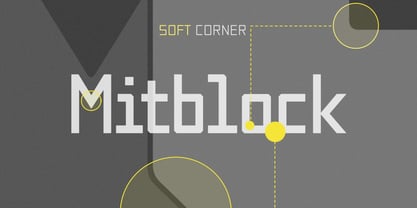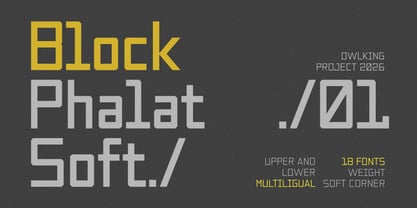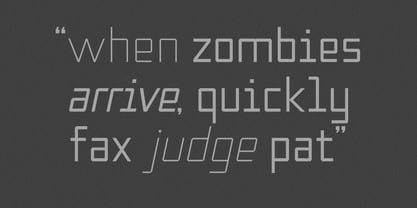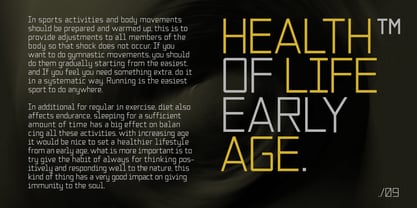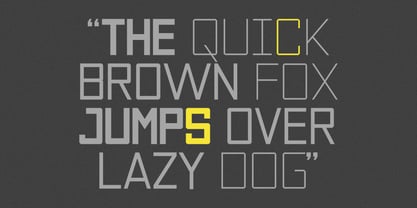
Block Phalat
by Owl king project
The Block Phalat Font Family was designed by Darhilen and published by Owl king project. Block Phalat contains 18 styles and family package options. More about this family
Built for impact, Block Phalat is a powerful geometric sans-serif family that seamlessly blends rigid, blocky structures with subtly softened corners. This unique balance delivers a commanding, industrial aesthetic without looking harsh, making it highly versatile for modern digital and print designs.
With a comprehensive lineup of 18 fonts (9 weights ranging from Thin to Black, plus matching italics), Block Phalat gives you total typographic control. Its high-x-height and technical, modular look make it an exceptional choice for tech branding, sports graphics, editorial headlines, gaming interfaces, poster design, and contemporary packaging.
Equipped with robust multilingual support, full upper and lowercase character sets, and precise numbering/symbols, Block Phalat is engineered to perform beautifully across global platforms.